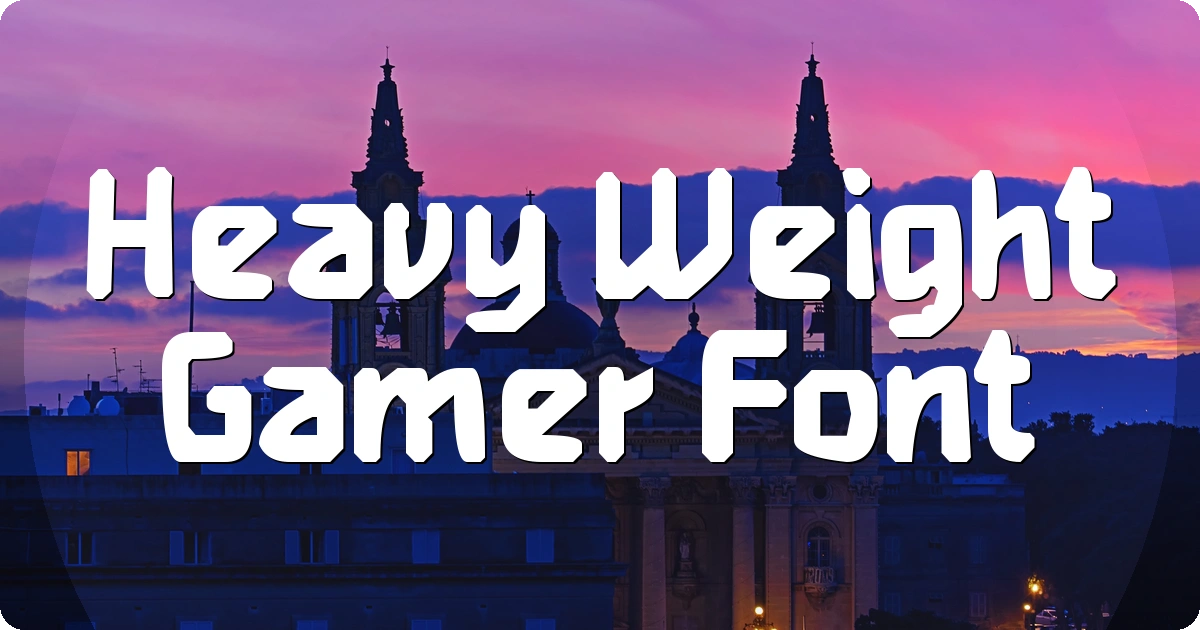
Abdul Malik Wisnu designed this display style. Heran Font is a lovely typeface with over a hundred characters, including punctuation, numerals, icons, and uppercase letters. TTF and OTF files are available here.
The characters are clear and simple to read, even in small sizes. The characters of this style are moreover unique, and ideal for body text.
Your content will get a nice look with this font. Because of its stylish glyphs, it is perfect for a wide range of designs. As well as being perfect use for in food naming designs, this font is also suitable for logo designing. Users can try this font in any project that needs a unique look. This type of font is best suited to make unique headlines and bold text.
Heran Font Preview
Font-style designs can also be generated using an online font generator. This style has colorful alphabets, clear numerals, and special characters which gives an amazing look to any project.
The program has excellent features and supports many languages. By pairing this style with geo sans font , you can create beautiful and decorative designs. When you want to increase the prominence of your project, this style is a great option. This style is excellent in terms of its basic elements. This font has traditional typography.
Unique Design and Elements
The typeface is very popular among designers and is used for web development and design. Additionally, a user may pair the typeface with several other typefaces to produce a stunning design. This typeface may be an awesome choice for features, logos, and other brief text.
You’ll create this typeface from the online text style generator tool. This is also an amazing style for different printing designs like shirts, visiting cards, advertisements, etc. The typeface is very popular among designers and it is used to design websites as well.
With this typeface, it is easy to create beautiful tattoo designs. As well as printing t-shirts and banners, it can also be used for designing logos and creating posters.
Enhance the Beauty with Heran Font
If you’re looking for a typeface for your new game or blog, or logo, then you’ve come to the right place this style can fulfill all the project requirements. Whether you are designing headlines, logos, or display items, this font will serve you well. We offer a stylish font on our website.
The typeface is a great choice for all of your fun design projects. The texture of the typeface is suitable for many different designs, such as websites, posters, banners, brochures, and pamphlets. This typeface is also perfect for gift cards, animations, game designs, and digital designs.
What kind of style the heran typeface is?
Abdul Malik Wisnu designed this display style. It is a lovely typeface with over a hundred characters, including punctuation, numerals, icons, and uppercase letters.